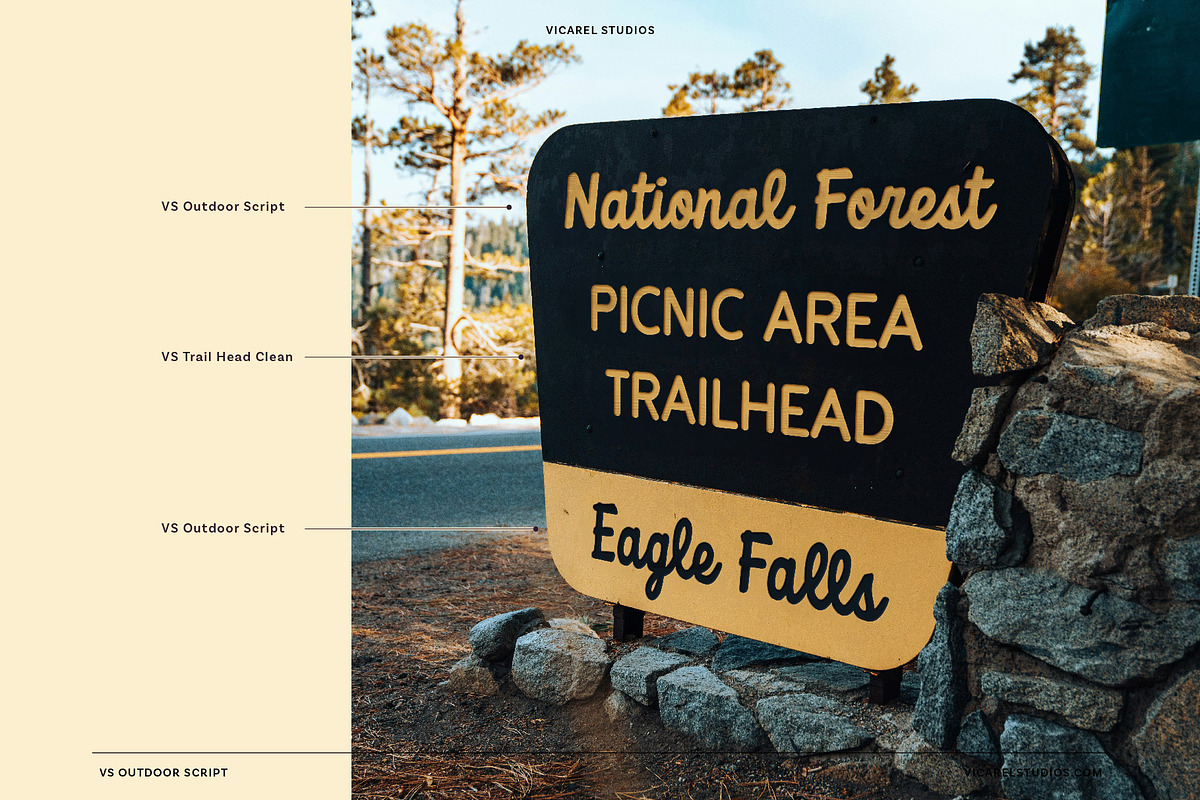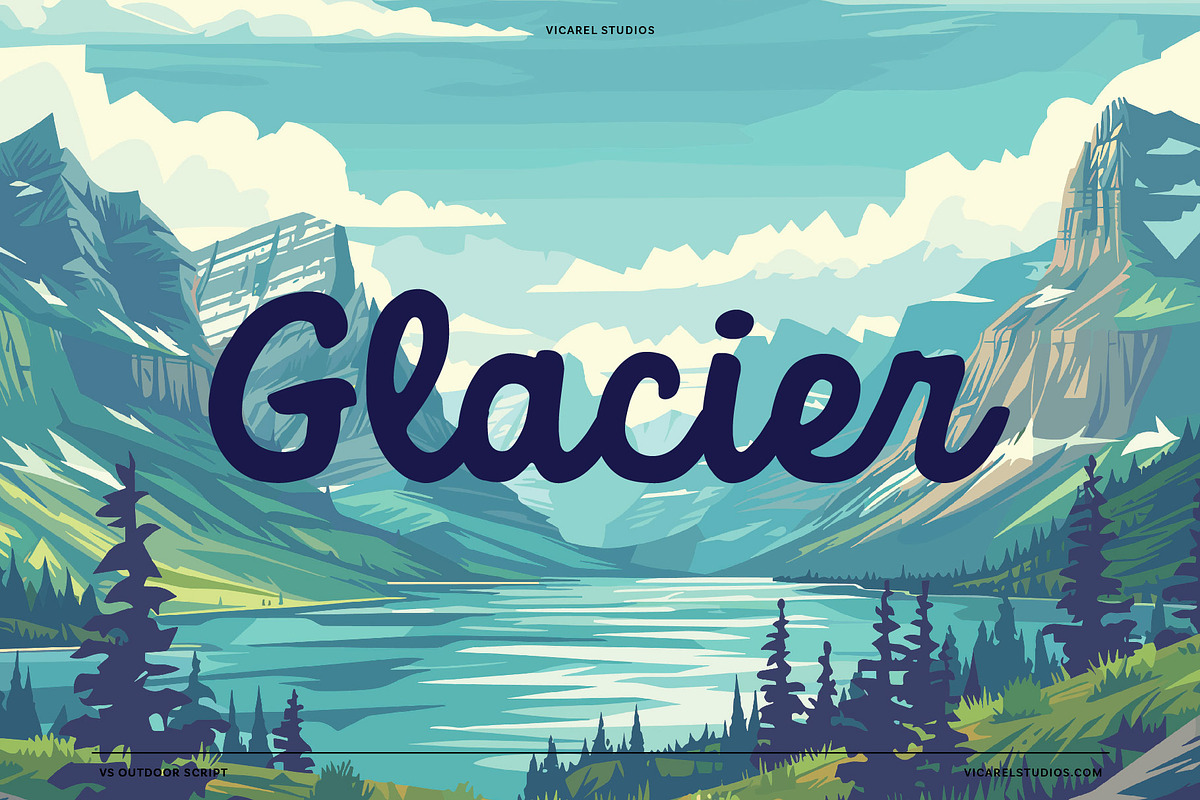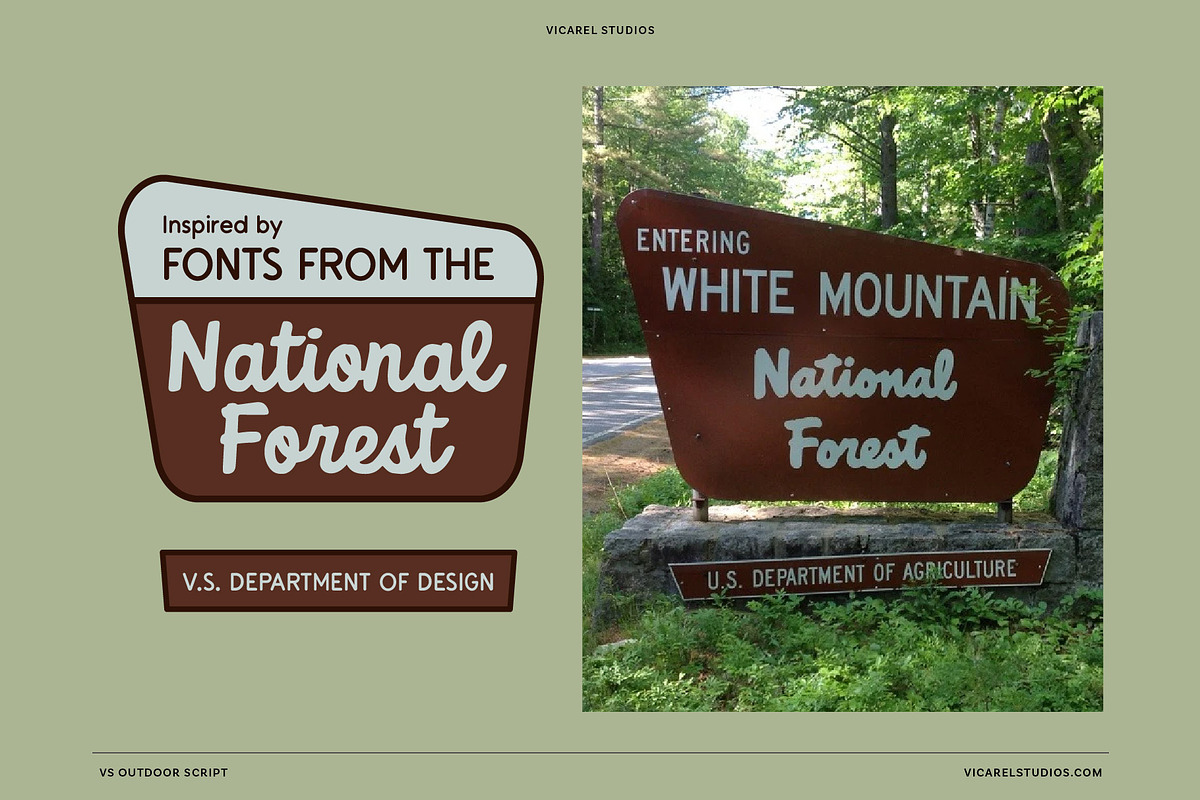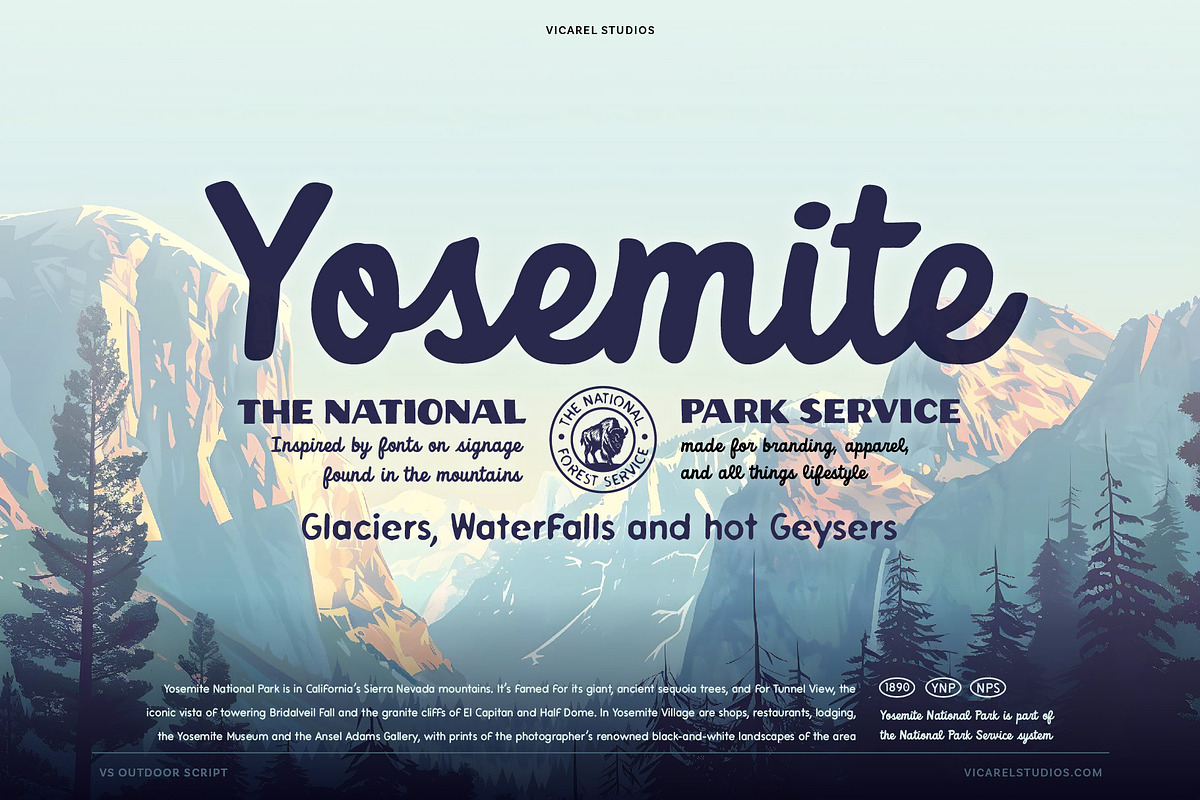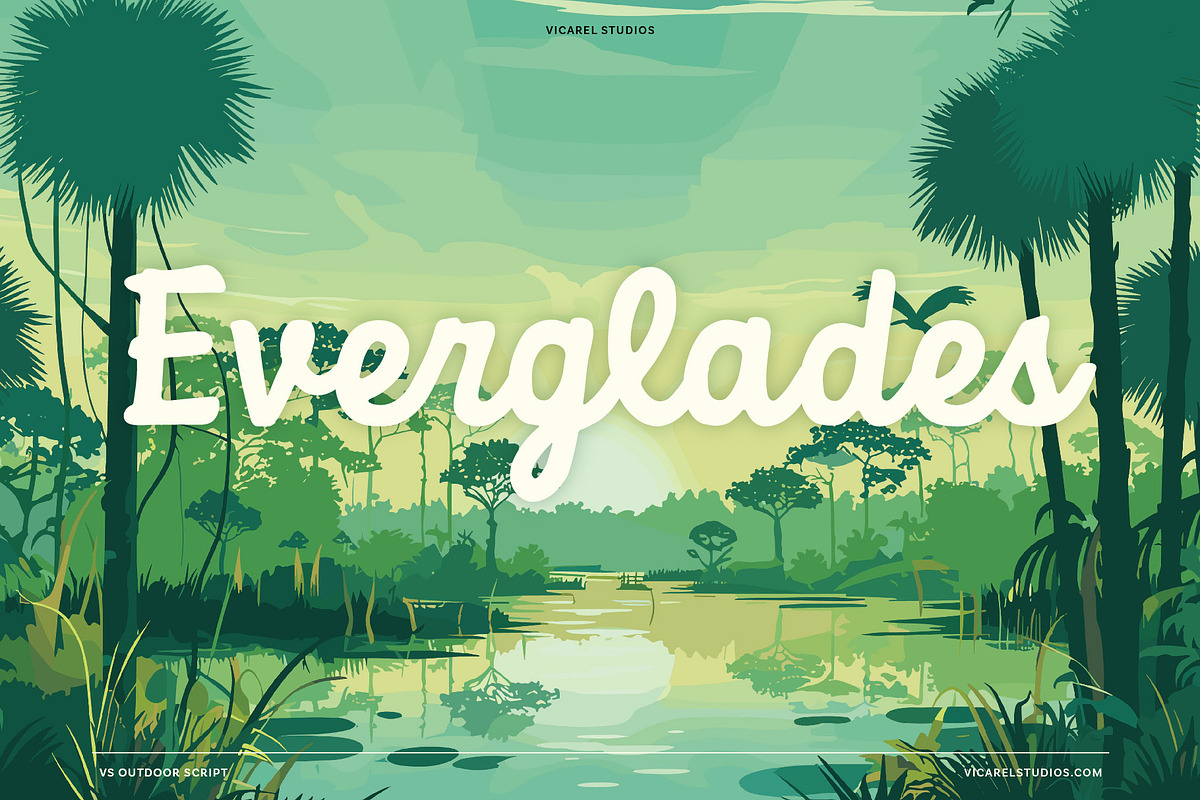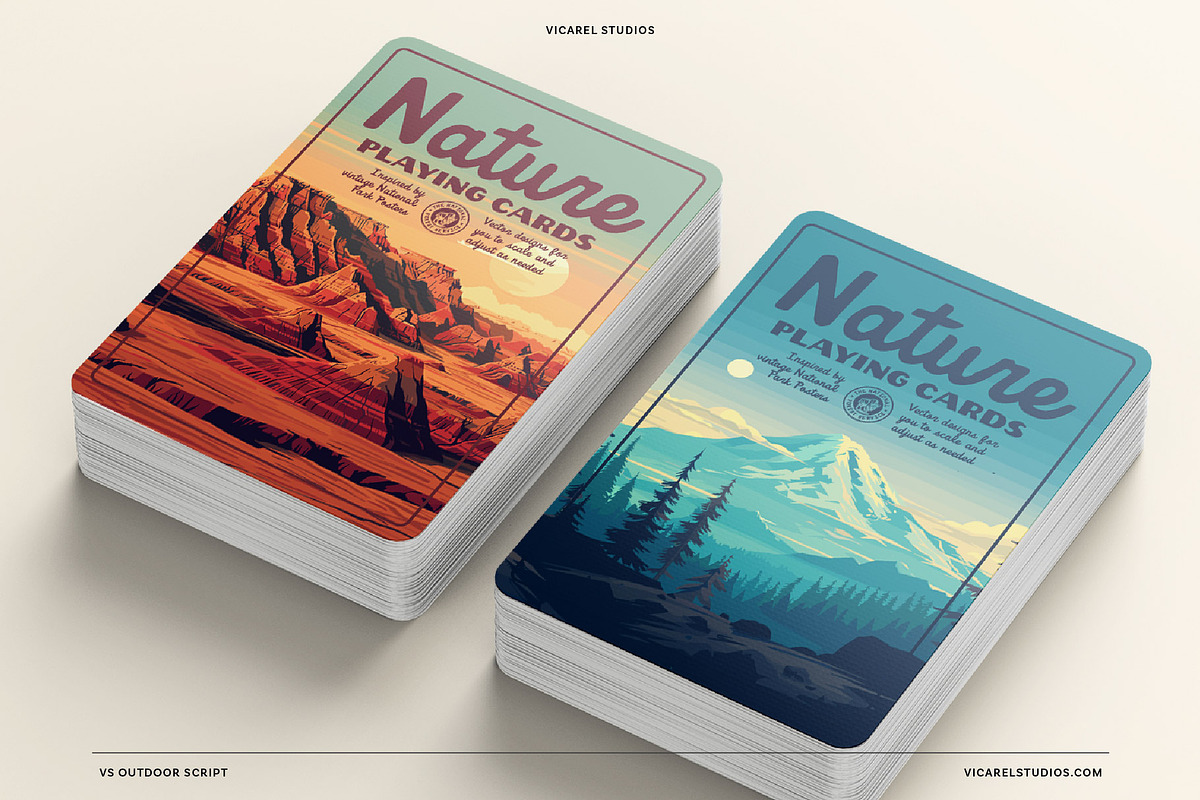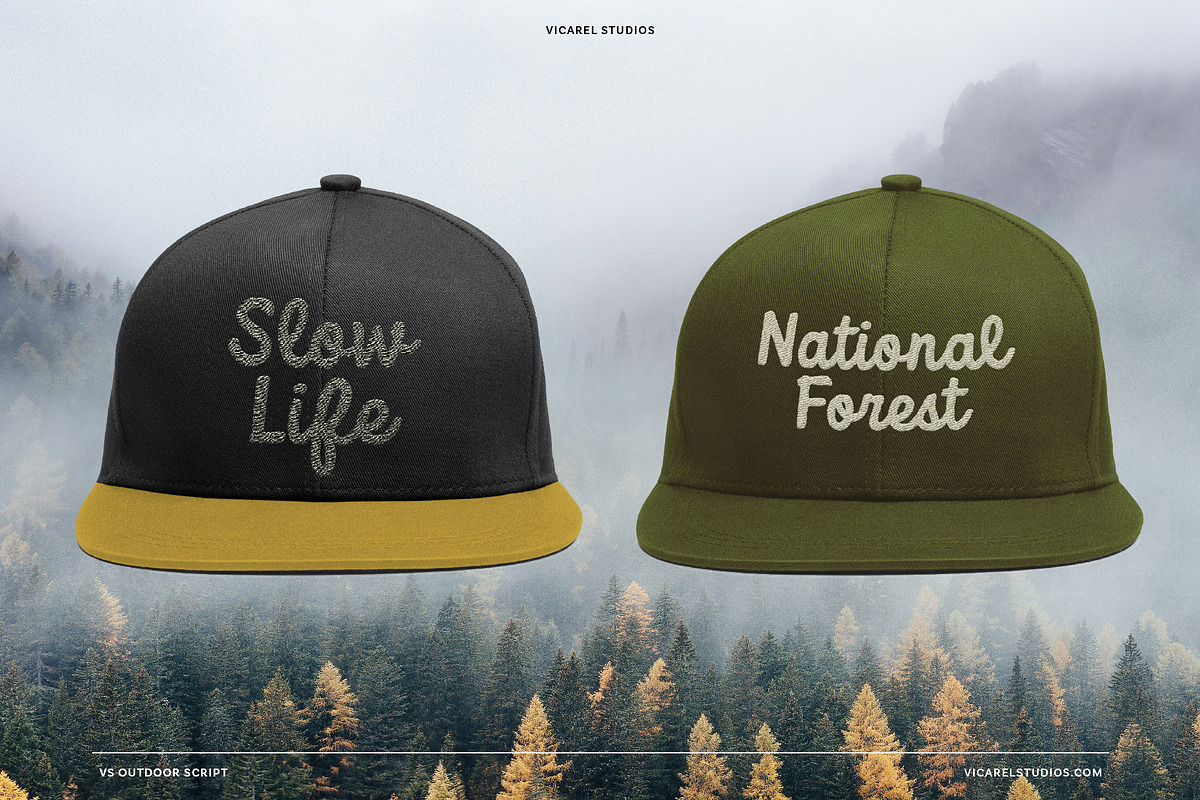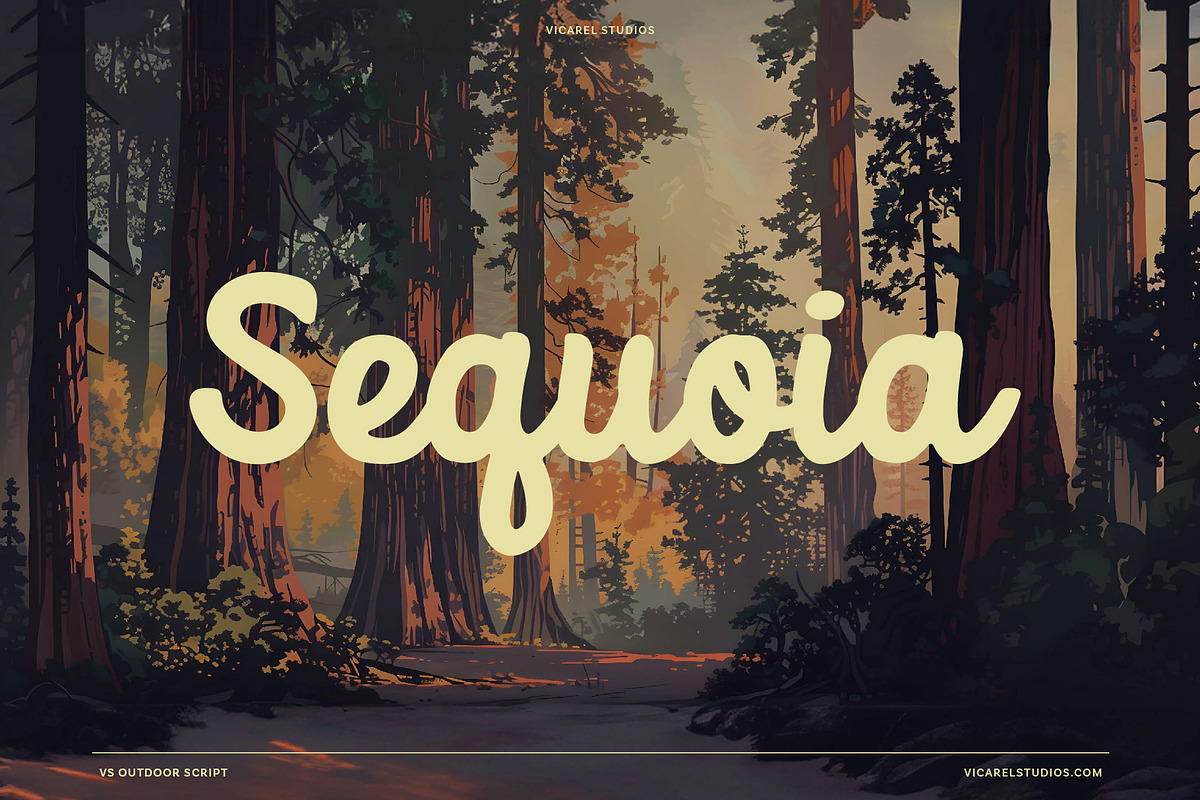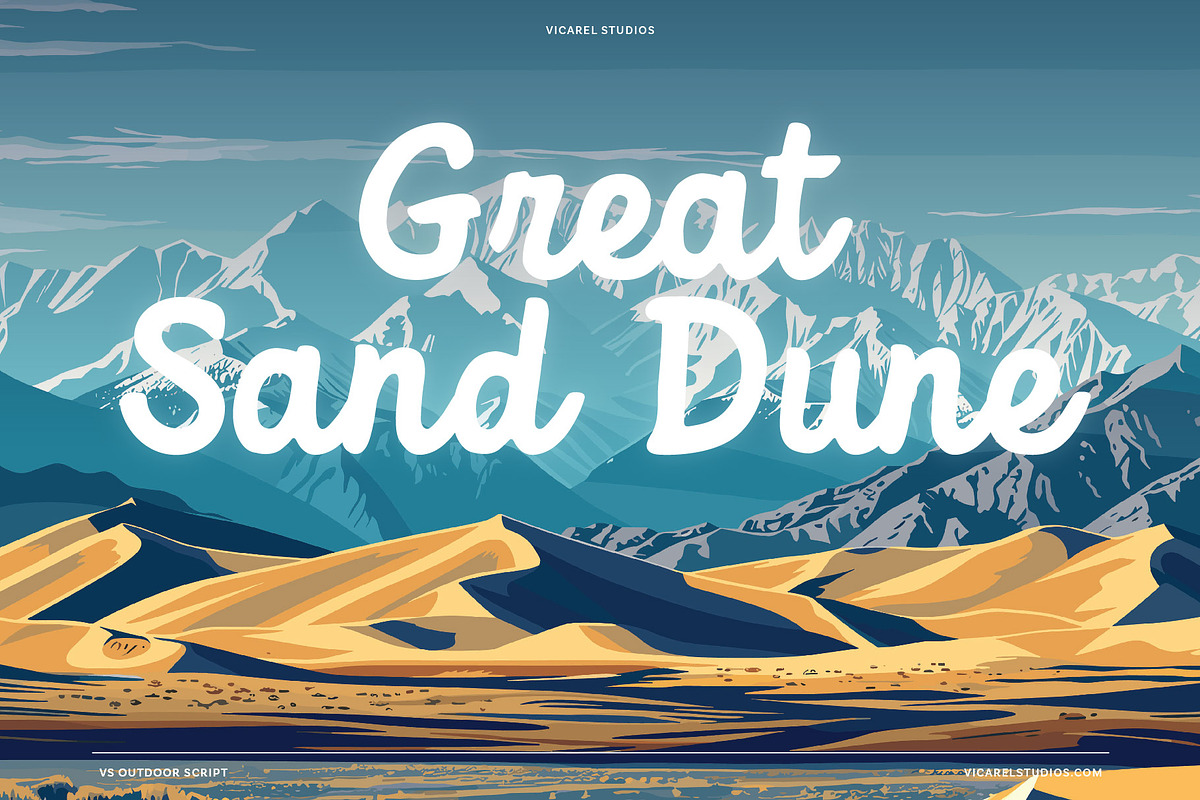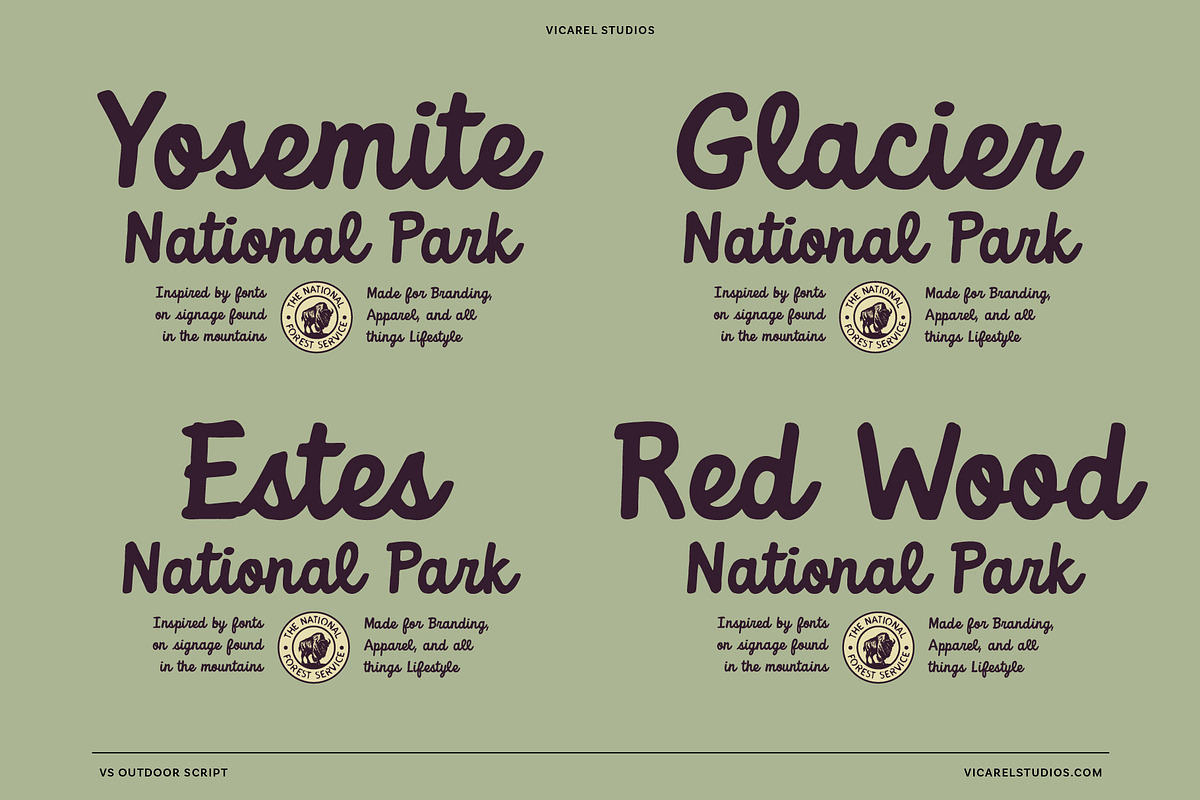
Outdoor Script | National Park Font
Outdoor Script – a nostalgic script font inspired by the National Forest Service logotype. If you’re looking for a soft script font that captures the essence of the great outdoors, VS Outdoor Script was designed for you.
Inspired by the rustic charm of the National Forest Service script logotype found on National Park signs, this hand-drawn font features a full English character set with a number of ligatures to aid in a custom feel.
- Ligatures for commonly repeated letterforms (oo, ll, etc.)
National Forest Service logo inspiration VS Outdoor Script draws its inspiration from the trailhead signs and way finding found in the National Forests and in mountain towns across the US.
This nostalgic script is more than just functional—it was created to capture the memories of hikes through forests as a kid, campfires under star-lit skies, and road trips through vast and open landscapes. VS Outdoor Script takes this inspiration and distills it into a script font that feels authentic, rustic, approachable, and wonderfully nostalgic. This vintage font was created to pair seamlessly with our other fonts that have been inspired by national park poster fonts.
VS Outdoor Script font features soft, rounded letterforms with a few unique ligatures that give it a “perfectly imperfect” look, reminiscent of hand-crafted signage crafted by the National Forest Service. The natural and organic style makes it ideal for designs trying to convey warmth, friendliness, and a genuine love or connection for the outdoors.
How to use this National Park poster font This nostalgic script was created for graphic designers, lovers of the outdoors and travel bloggers alike. Versatile and charming, this national park poster font has a hand-drawn aesthetic that is perfect for a wide range of projects.
- Logo Design: Crafting a unique and memorable logotype is tough. But, when you have a base typeface that already has a unique style, it’s far easier.
- Apparel Design: Whether a t-shirt or a hat – or anything in between – the soft, rounded curves of VS Outdoor Script look great on apparel designs. It’s perfect for brands that want to celebrate or be associated with national parks, the national forest service, camping culture (i.e., hiking, camping, and drinkin’ beers), or simply a love for the outdoors.
- Packaging Design: VS Outdoor Script feels like a refined version of hand lettering, helping it be a perfect fit for product packaging because of its rustic, natural feel. Think: coffee brands that want to evoke a cabin-in-the-woods vibe, or skincare products that emphasize natural ingredients – this nostalgic font is perfect for packaging designers.
- Poster Design: Ideal for event posters, tourism ads, or any other designs that need a touch of vintage or national park poster-inspired charm. VS Outdoor Script is reminiscent of classic national park posters, but with a fresh and contemporary take.
If you’re looking for a nostalgic script font inspired by the National Forest script logotype, VS Outdoor Script is your answer.